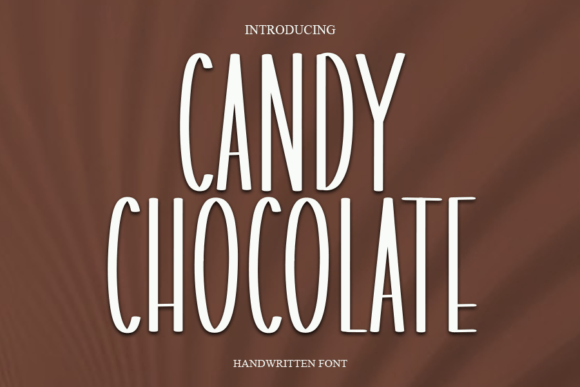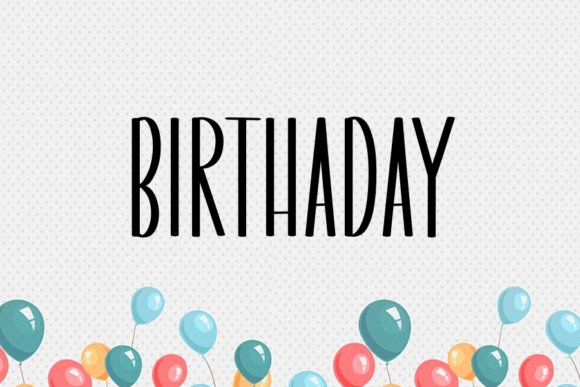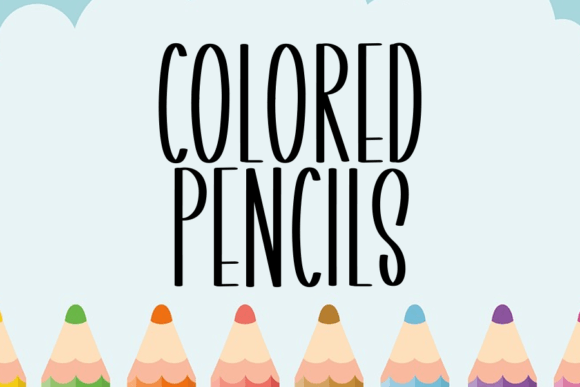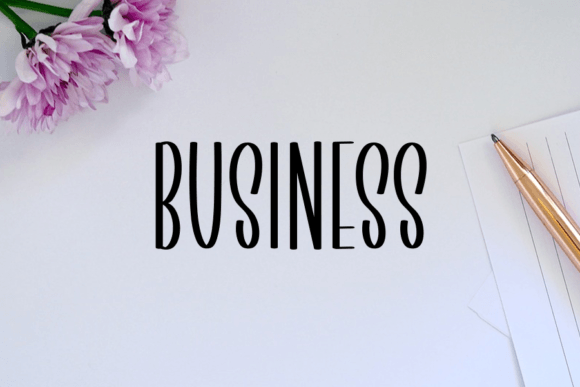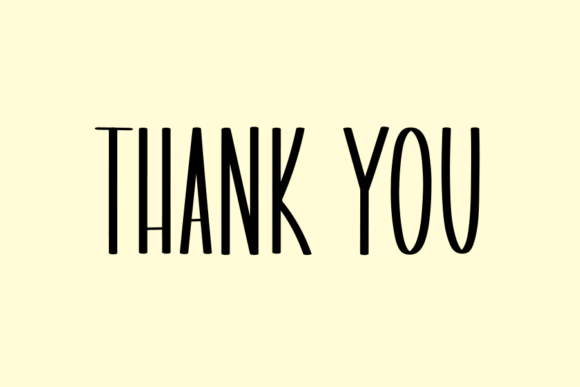
Candy Chocolate Font
About Candy Chocolate Font
“Candy Chocolate” is a delightful and visually pleasing handwritten font that exudes a sweet and charming aesthetic. With characters that gracefully dance along the baseline, this font possesses a unique and luxurious quality that will undoubtedly infuse a touch of elegance into any design project you choose to embark upon.
The distinctive feature of “Candy Chocolate” lies in its playful and whimsical character arrangement. The characters appear to dance along the baseline, creating an enchanting and dynamic visual effect. This whimsy adds a sense of liveliness to your designs, making them stand out and leaving a lasting impression.
This font’s handwritten style captures the essence of creativity and personalization. It has a warm and inviting quality, making it an excellent choice for a wide range of design projects. Whether you’re crafting invitations, designing product packaging, creating social media graphics, or developing branding materials, “Candy Chocolate” will infuse a delightful charm into your work.
The name itself, “Candy Chocolate,” evokes a sense of indulgence and sweetness, and the font lives up to this expectation. It exudes a sense of luxury that is perfect for projects where you want to convey opulence and sophistication. The characters flow smoothly, creating a harmonious and visually appealing composition.
Incorporating “Candy Chocolate” into your design projects will undoubtedly add a touch of whimsy and luxury. Its unique handwritten style and dynamic character arrangement make it an ideal choice for designs that aim to captivate and delight the audience. Embrace the sweetness and charm of “Candy Chocolate” in your next project and watch it sparkle with creativity and elegance.